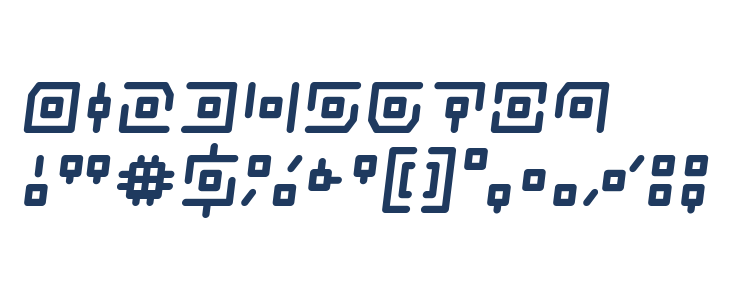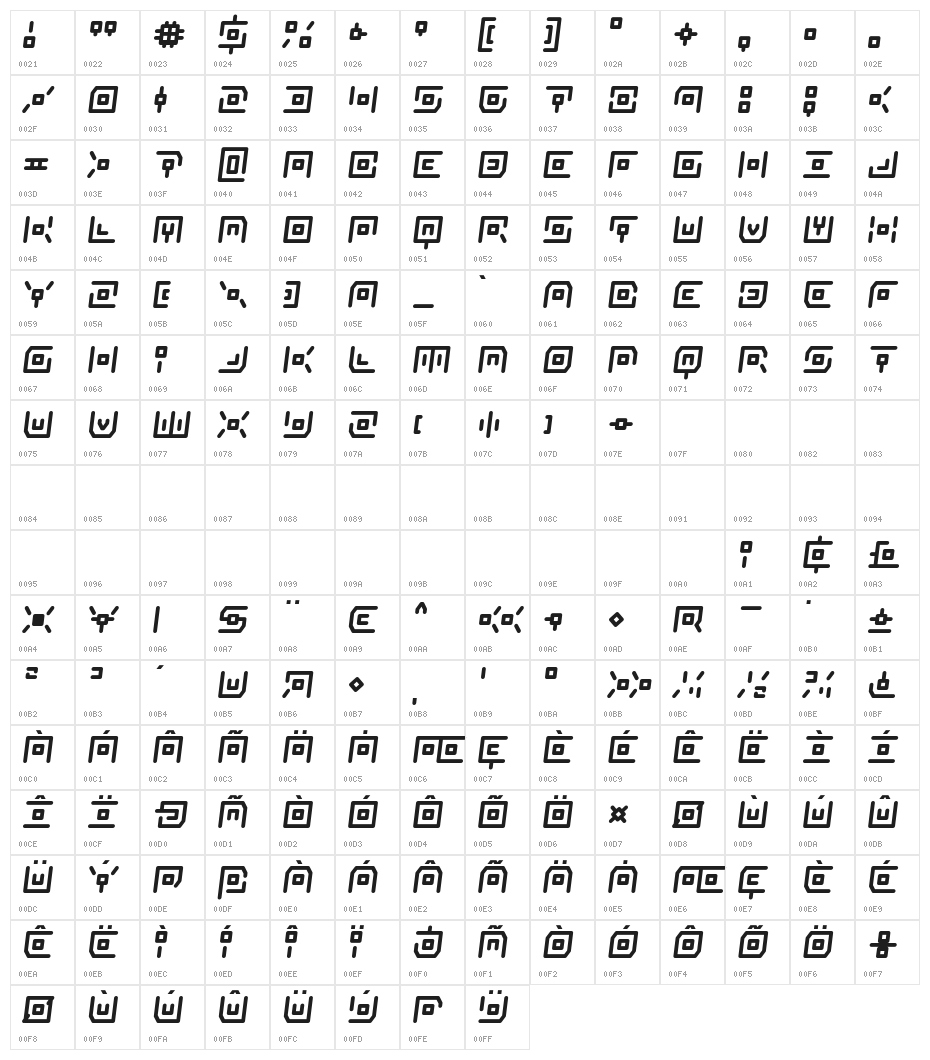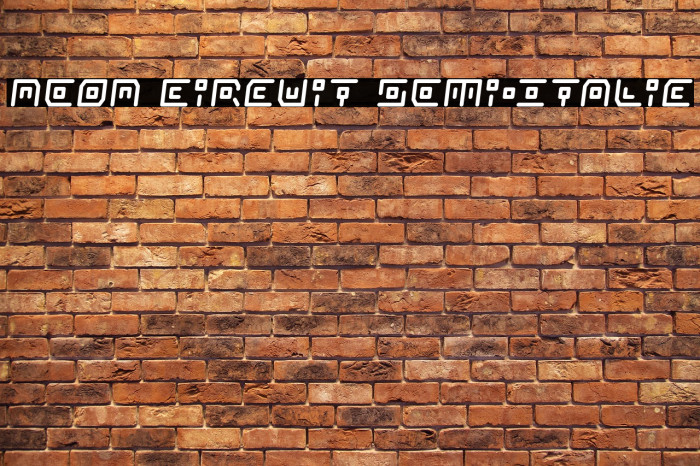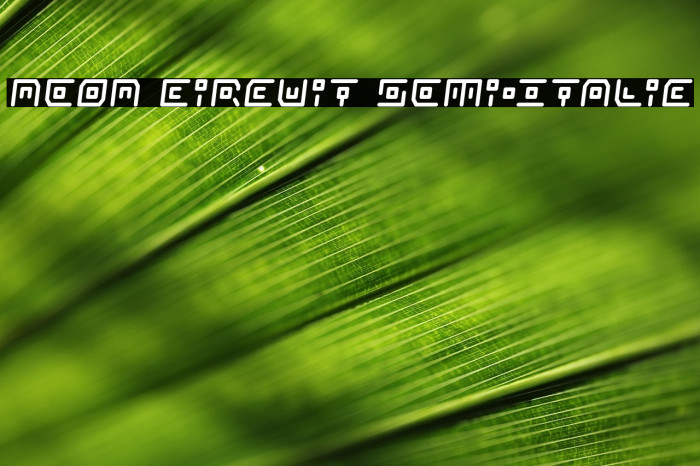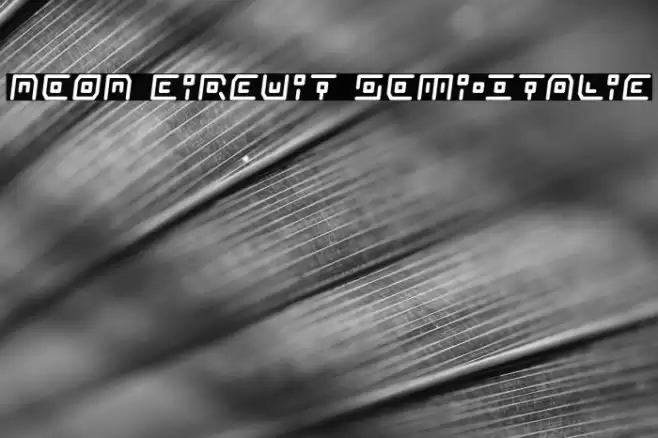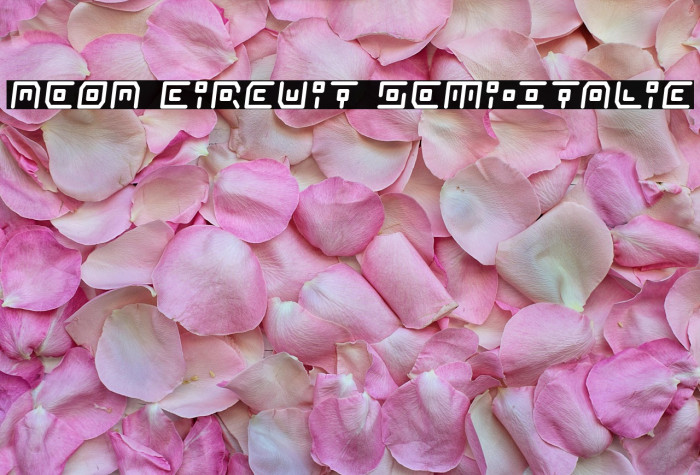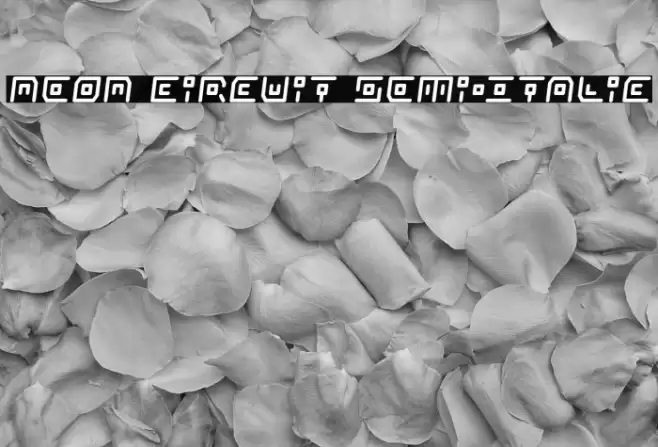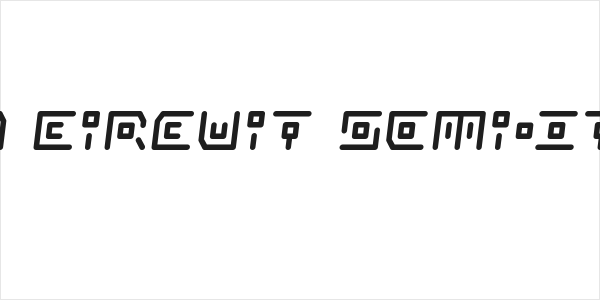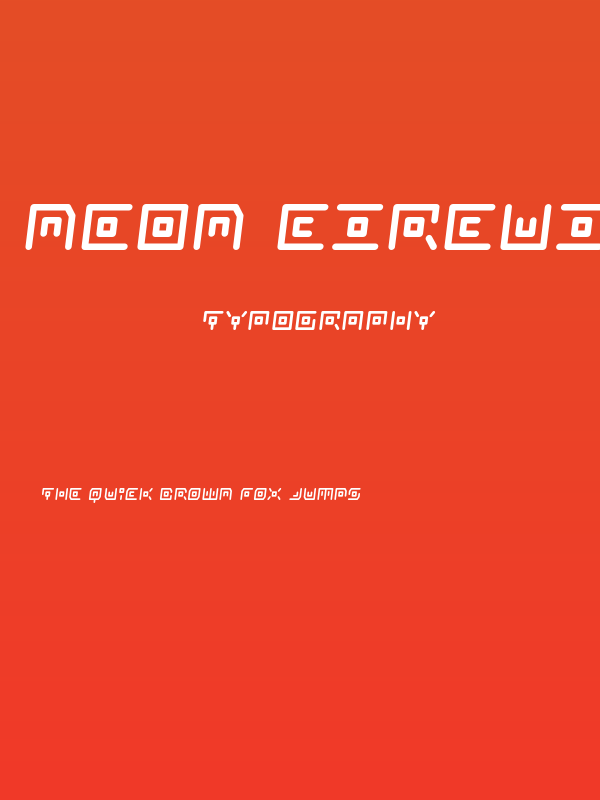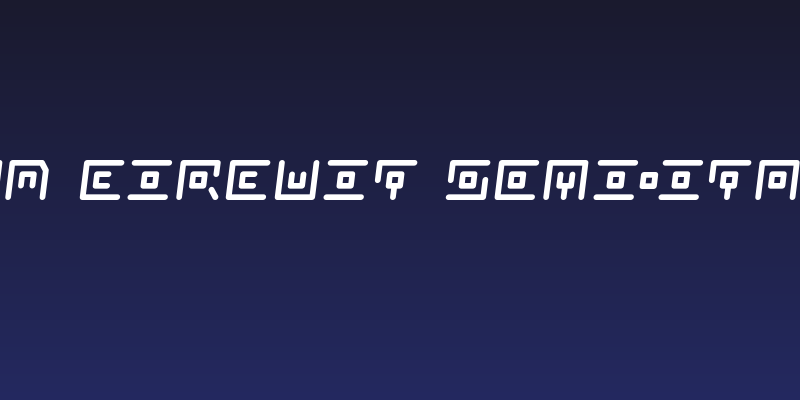
Neon Circuit Semi-Italic Font
Neon Circuit Semi-Italic Description
This font features a futuristic and digital aesthetic, reminiscent of neon lights and circuit board designs. The characters are composed of geometric shapes with rounded edges, creating a sense of movement and fluidity. The semi-italic slant adds a dynamic touch, enhancing its modern appeal. The strokes are consistent in thickness, providing a uniform appearance across all characters. The font's unique style makes it stand out, ideal for projects that require a tech-savvy or sci-fi theme. Its distinct appearance is both eye-catching and memorable, making it suitable for creative and innovative designs.